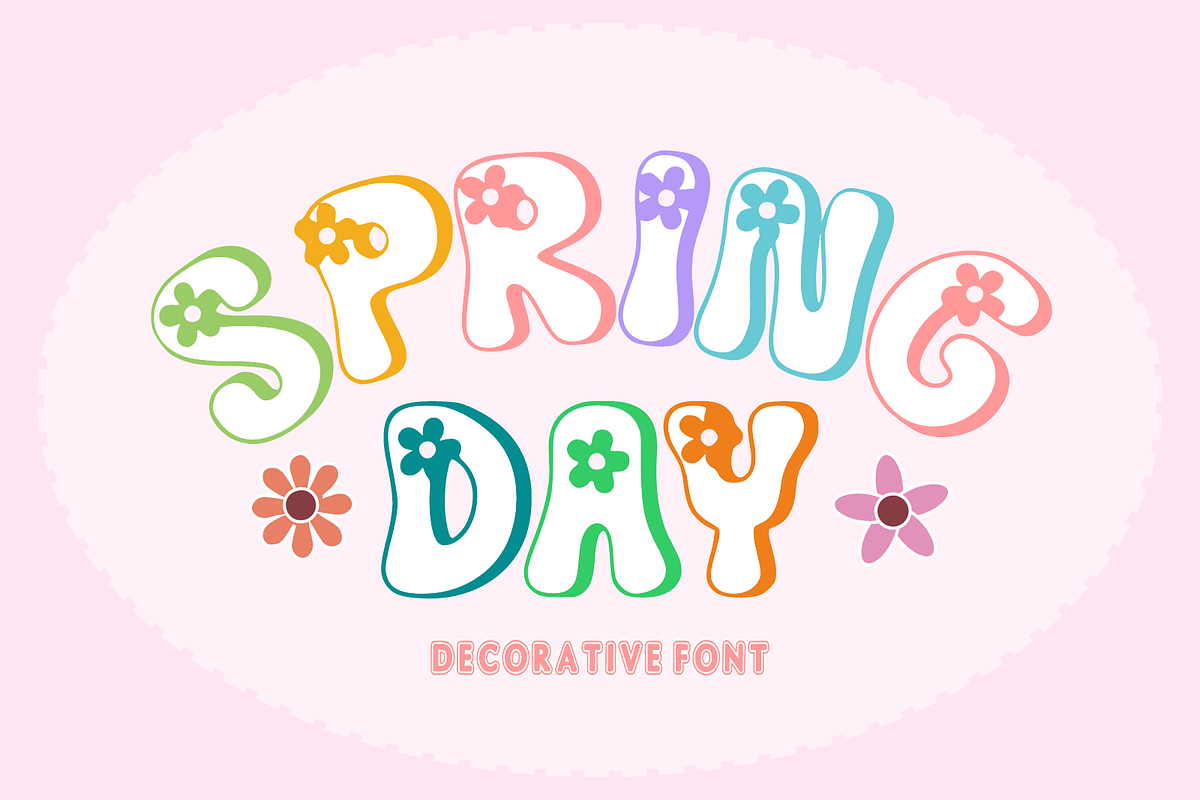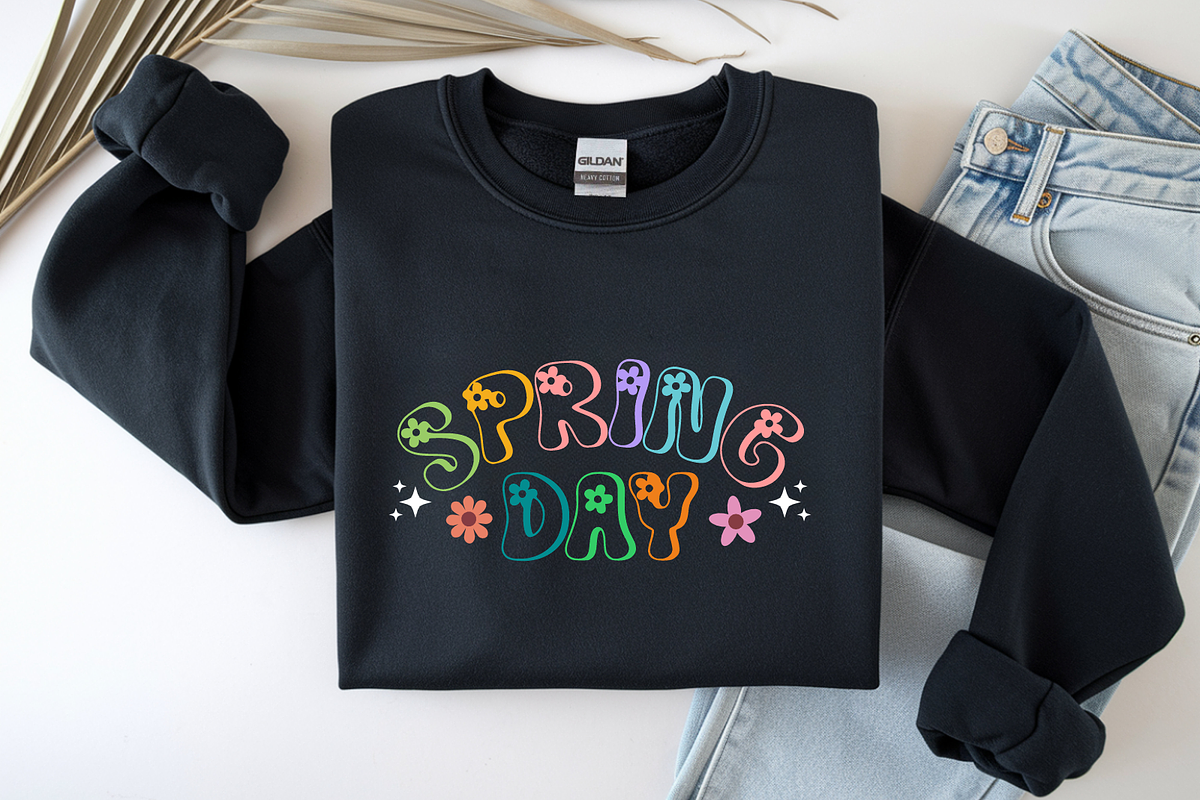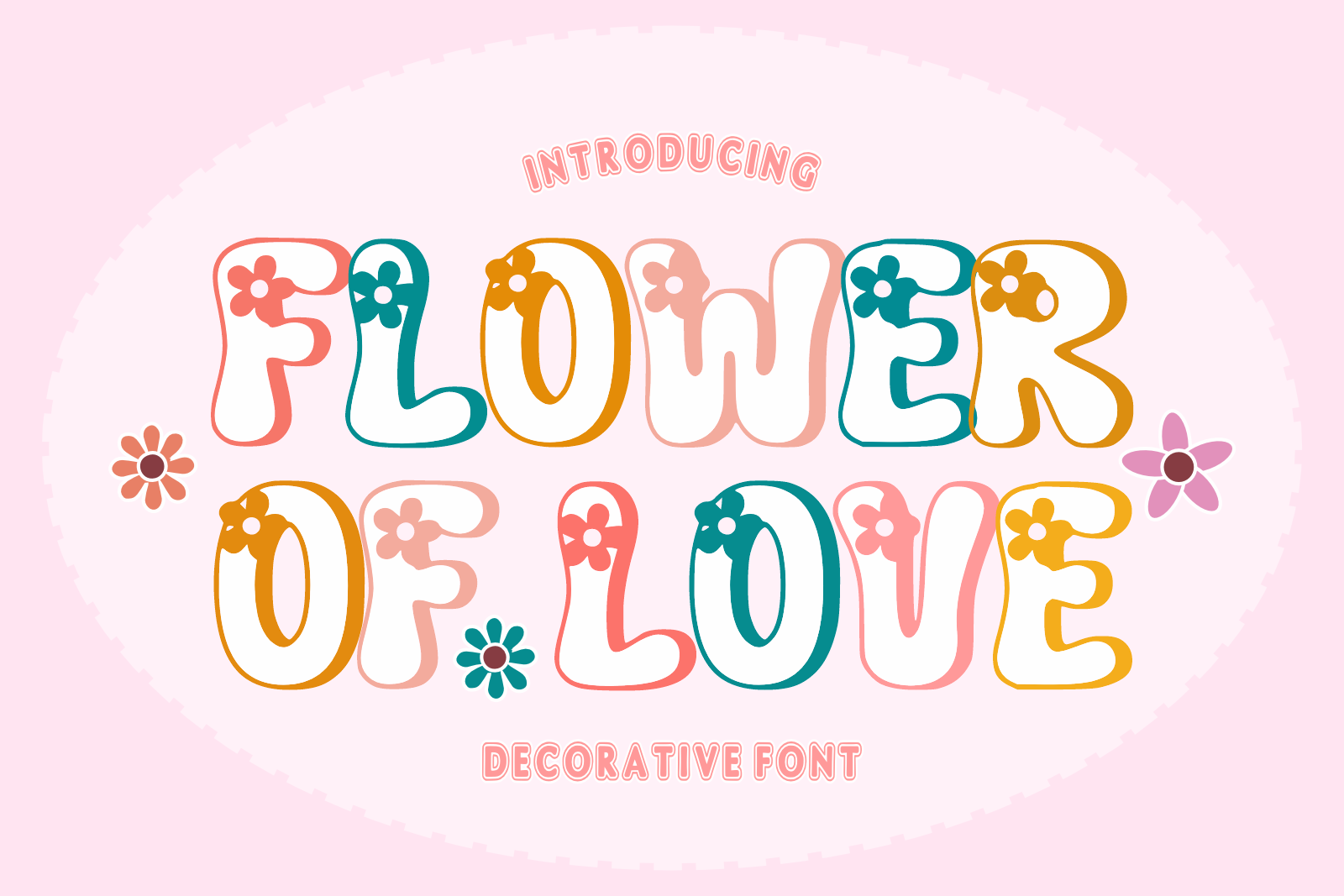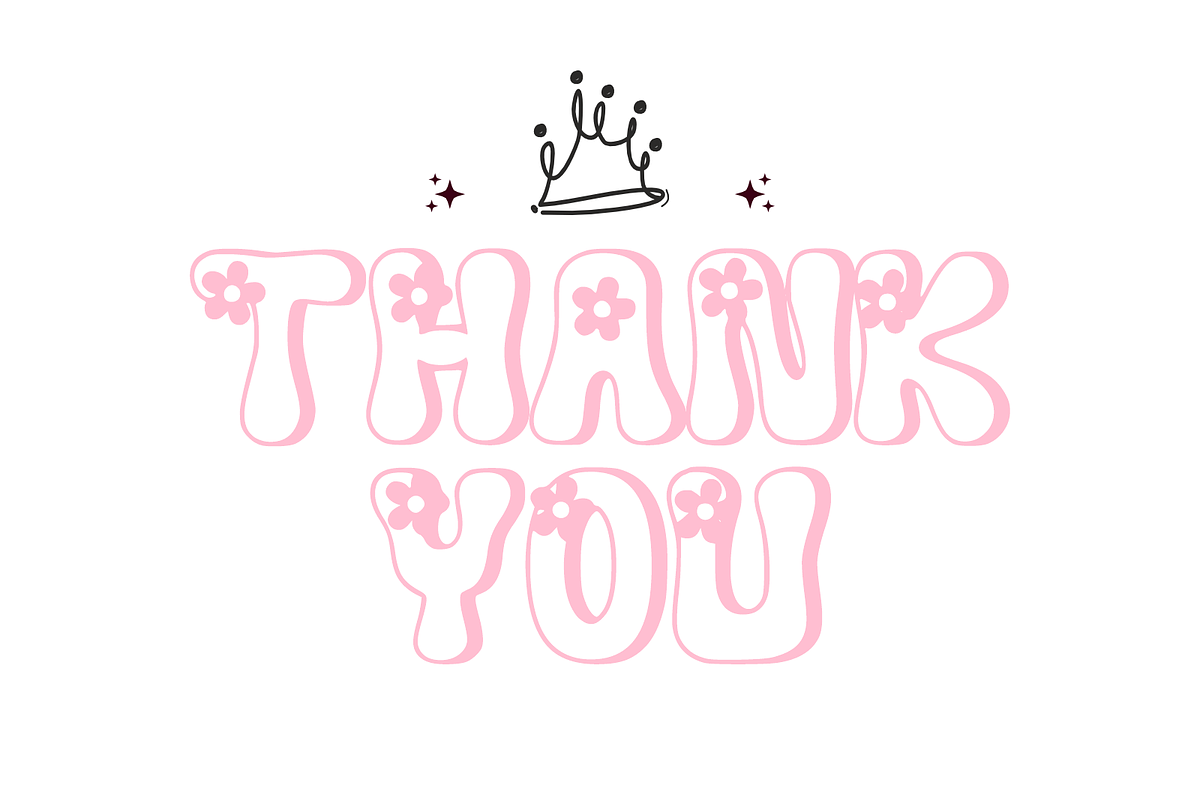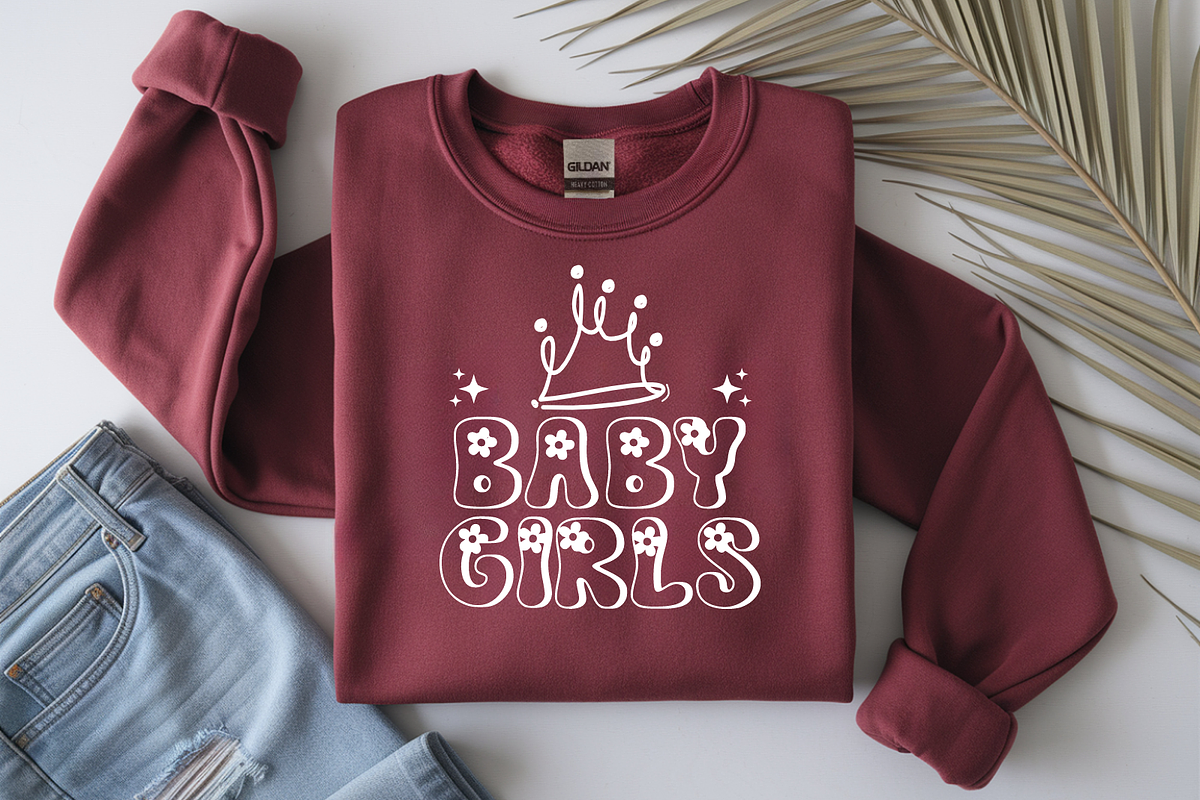
Flower of Love - Flower Font Types
🌸 Flower Of Love - Whimsical Floral Display Font ✨ Let your creativity bloom with Flower Of Love! This enchanting decorative font blends a bubbly, playful aesthetic with delicate floral accents, making every character feel like a fresh spring blossom. Perfect for designs that need a touch of romance and whimsy, this font features bold, rounded shapes decorated with charming flower motifs that "pop" off the page. Whether you are crafting for Valentine’s Day, spring events, or sweet branding, Flower Of Love adds an organic, cheerful vibe that is simply irresistible! 🌷
🎨 Key Features: Decorative Uppercase Set (Blooms integrated into every letter) 🔠
Numbers & Basic Symbols (Clean and consistent) 🔢
Bouncy & Puffy Style (Inspired by modern sticker art) 🎈
High-Impact 3D Shadow (Provides depth and professional polish) ✨
🚀 Perfect For: Wedding Invitations & Stationery 💌
Mother’s Day & Valentine’s Day Graphics 💖
Kids' Branding & Nursery Decor 🧸
T-shirt Designs, Stickers & Enamel Pins 👕
Bakery, Florist & Boutique Logos 🍰
Social Media Quote Art & Banners 📸